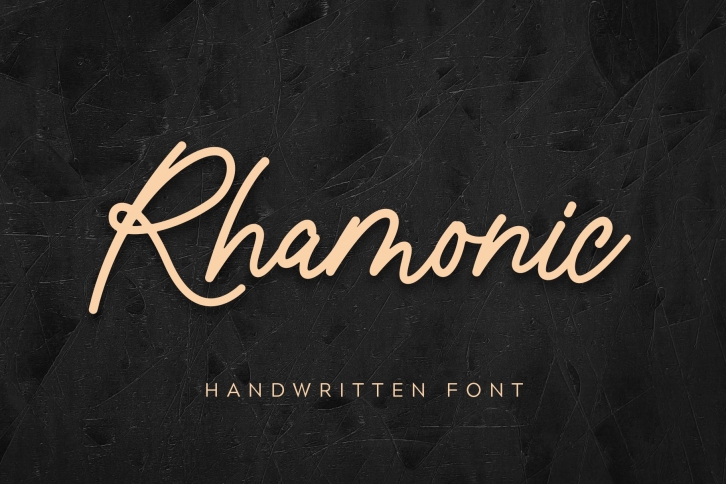
Rhamonic Handwritten is a trendy and unique font with an authentic style. It was designed by sancrea and it's a great choice for creative people who need such a font. It was released on October 9, 2019 and the file size is 15.19 MB. Rhamonic Handwritten will add an organic vibe to any design idea!